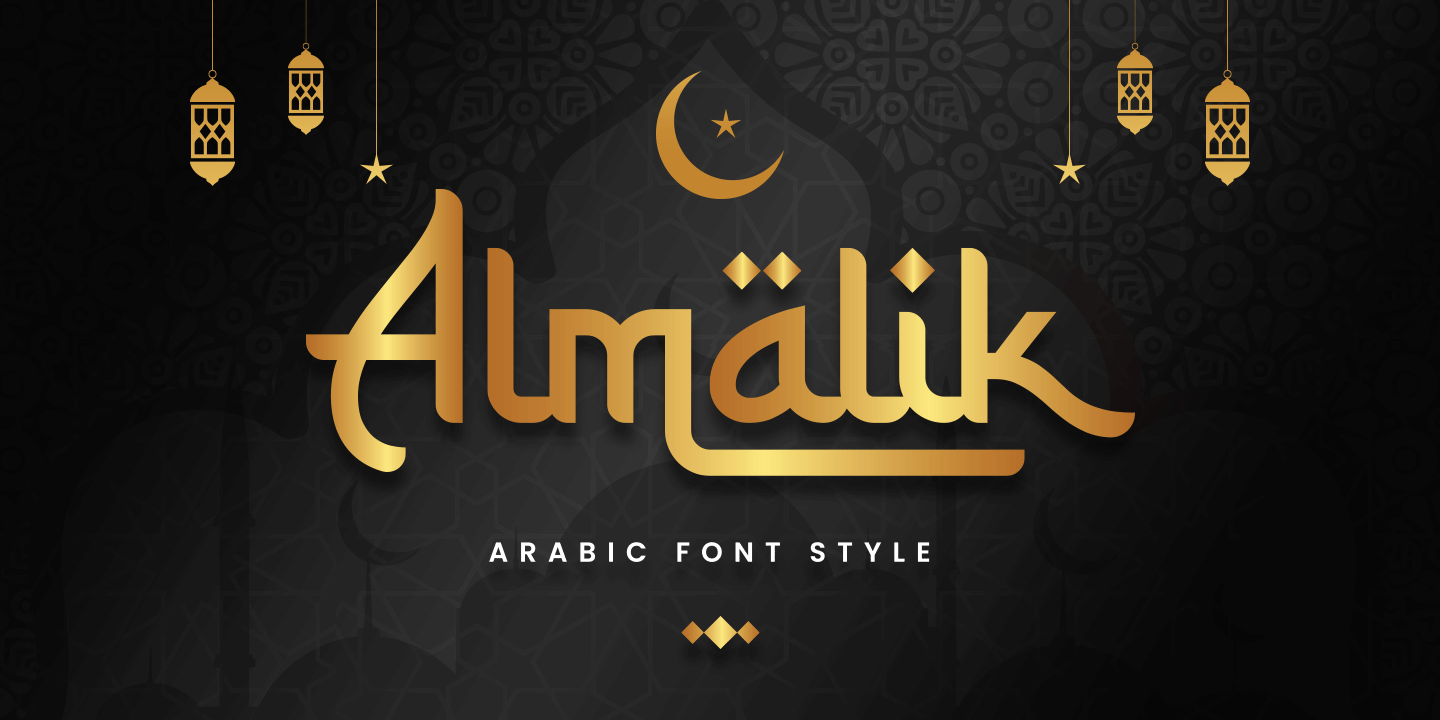
The Almalik Font is a beautifully elegant and captivating typeface, often characterized by its flowing, majestic lines and a sophisticated, almost regal presence, drawing inspiration from classic calligraphy and refined artistry. Imagine its exquisite characters gracing bespoke wedding invitations, adding a luxurious touch to high-end branding for prestige products, or creating captivating titles for fine art books and cultural events. Its intricate yet legible forms, subtle flourishes, and elegant ligatures also make it an excellent choice for custom stationery, sophisticated certificates, unique branding for artisanal goods, and social media graphics that aim for a distinguished and timeless aesthetic. Whether you're aiming for a classic, opulent look or a contemporary design infused with historical grandeur, Almalik Font delivers with its undeniable beauty, ensuring your visuals are both inviting and truly memorable.
What makes Almalik Font so exciting is its remarkable ability to infuse designs with an immediate sense of nobility, intricate detail, and handcrafted artistry. In a digital world often dominated by rigid or overly utilitarian typefaces, this font offers a refreshing alternative that feels authentic and deeply personal. It evokes a feeling of bespoke craftsmanship and elegant heritage, making your designs feel more approachable and memorable. It’s more than just a typeface; it’s a design element that can instantly convey emotion and sophistication, allowing designers to create work that feels more artisanal and less mass-produced. Its versatility in maintaining legibility while exuding grace makes it a highly sought-after tool for designers aiming for a distinct and impactful presence. For designers seeking this elegant touch, the Almalik Font Free Download is an excellent opportunity.
The Almalik Font family is typically structured to offer a thoughtful range of variations to enhance its usability and artistic potential. While the primary Almalik Regular typeface provides that distinctive flowing look, you might find companion styles such as a slightly bolder Almalik Bold for emphasis, or various Almalik Swashes and ligatures that allow for even greater customization and natural flow between letters. Fonts of this caliber often come with extensive OpenType features, including stylistic alternates, contextual alternates, and multiple ending forms for each letter, ensuring truly organic and beautiful connections that mimic authentic calligraphy. These diverse family members provide designers with the flexibility to create cohesive and sophisticated layouts that maintain the font's unique charm while offering practical solutions for various design needs.